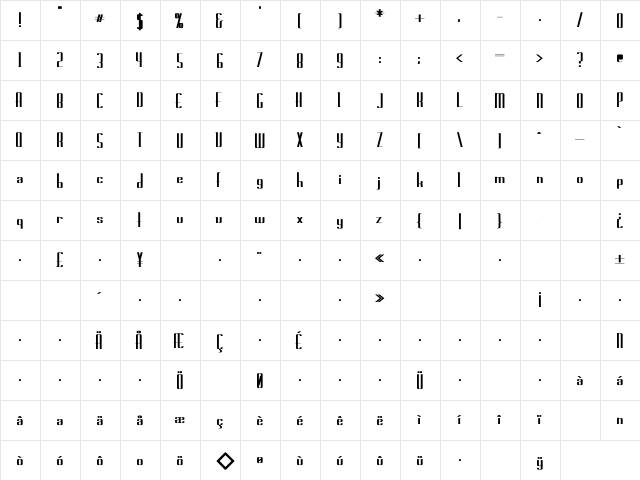
Rschasline Wd Bold Bold
Design Context for Rschasline Wd Bold Typeface
Rschasline Wd Bold is a composed and adaptable typeface that performs quietly and consistently across a wide range of design contexts. Its bold stroke weight gives it real presence on the page.